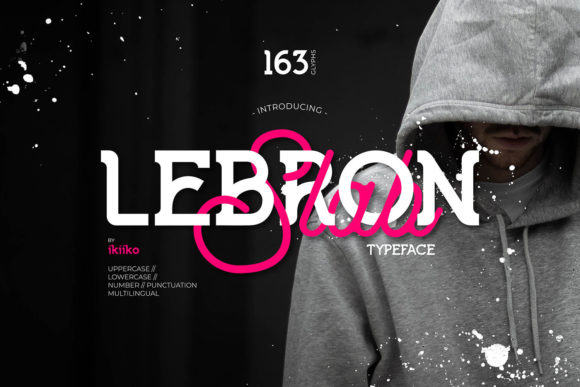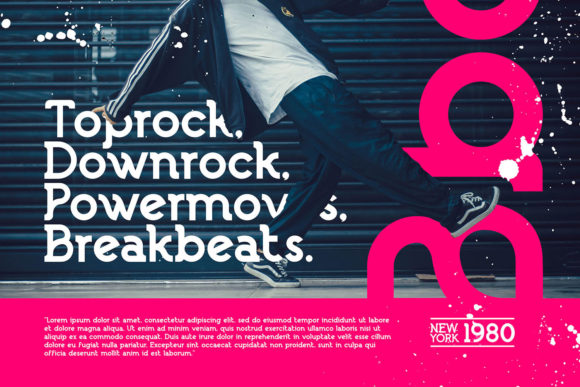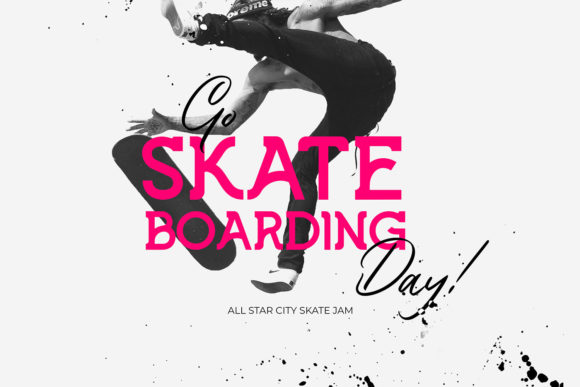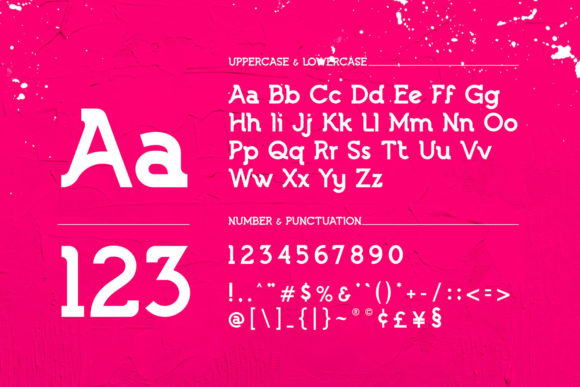
Lebron Font
About the Lebron Font
Presenting Lebron Font, a unique and stylish typeface that will make your work stand out. Lebron is a bold and uniquely designed slab serif font. This font is imposing and as a result, it will easily match a wide range of creations that require a distinct touch.
Lebron’s strong presence makes it ideal for headlines, short impactful statements, and branding applications where a bold, authoritative voice is desired. It excels in posters, logos, and packaging design, particularly for products aiming for a premium or powerful image. However, its weight and slab serifs make it less suitable for body text or UI elements where readability over long stretches is crucial.
This font’s assertive personality pairs well with clean sans-serif fonts like Open Sans or Lato for a balanced contrast. For a more refined look, consider pairing Lebron with a classic serif like Garamond or a subtly elegant script font like Playfair Display. Avoid pairing it with other bold or heavily decorated fonts to prevent visual overload.
Lebron projects a confident, modern, and slightly rebellious energy. It suits brands seeking to convey strength, innovation, and a sense of premium quality. Think high-end sportswear, technology companies, or architectural firms.